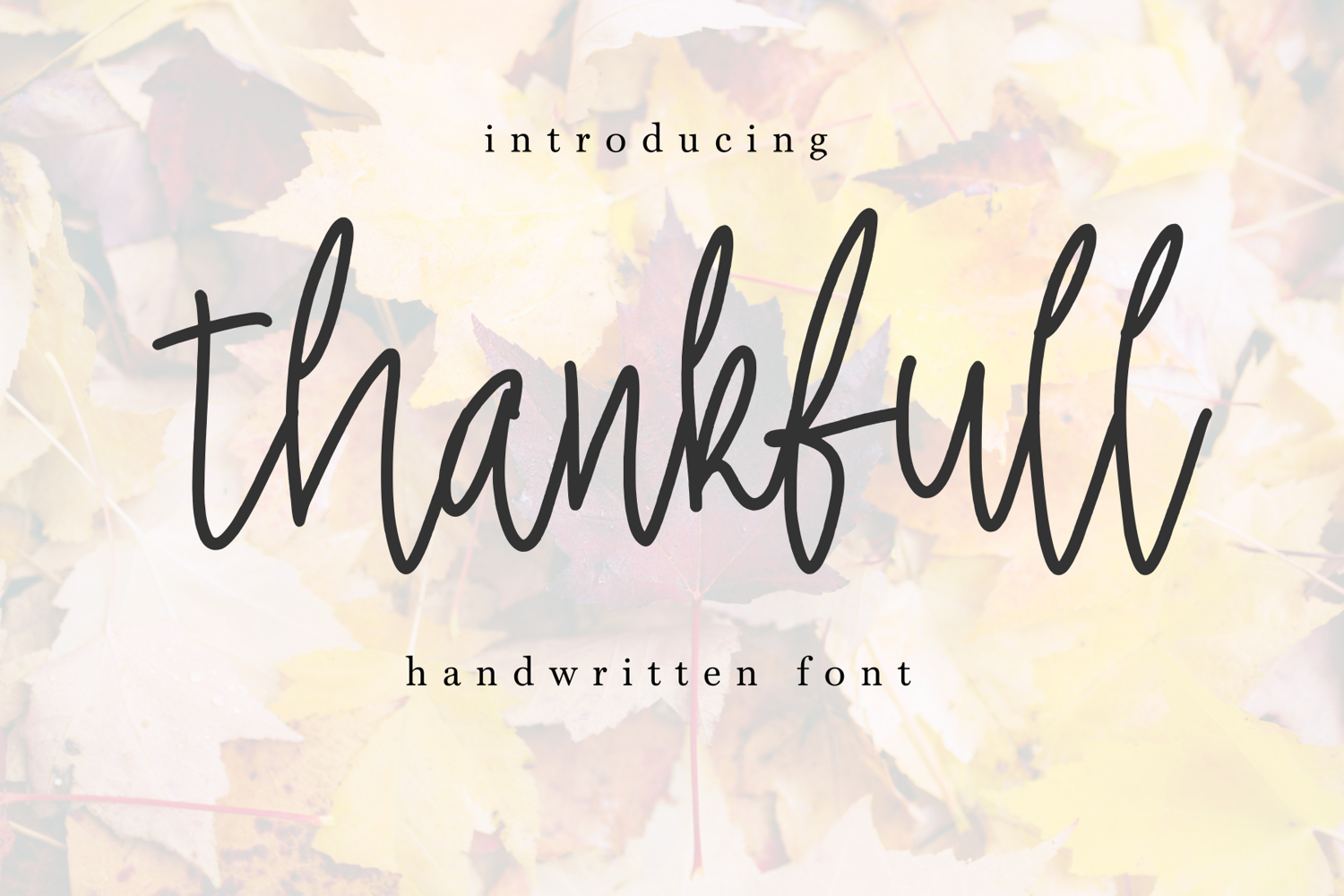
Thankfull is a modern handwritten font with a smooth, flowing style that brings a elegant touch to any design. Perfect for quotes, invitations, greeting cards, logos, and branding projects, this font adds warmth and charm with its natural hand-drawn look. Whether for seasonal crafts, digital designs, or printables, Thankfull will make your creations stand out beautifully.